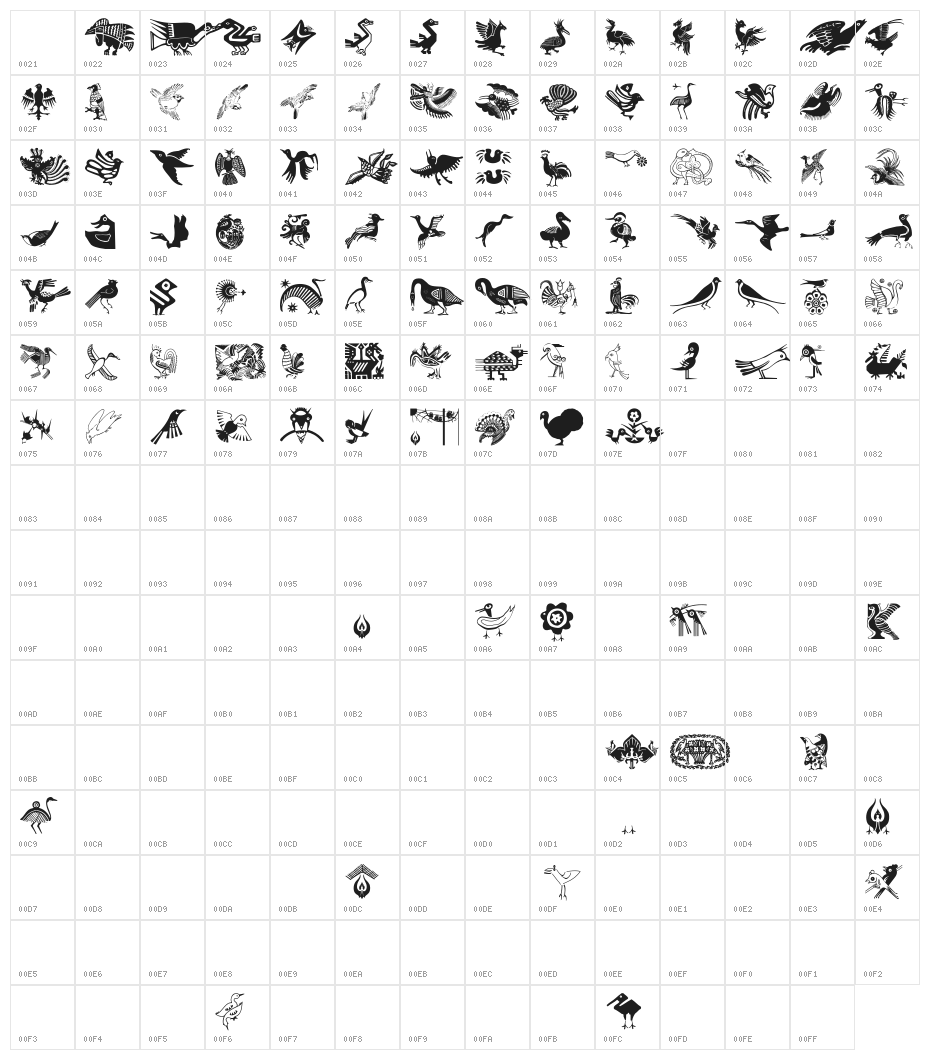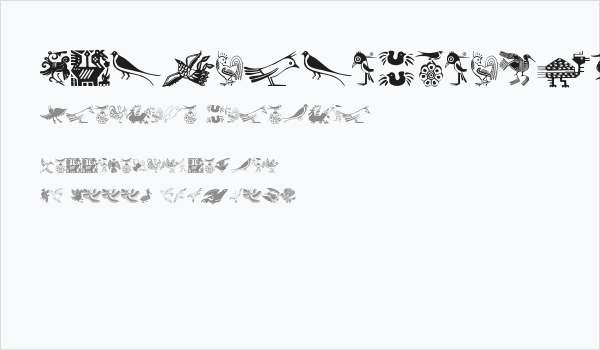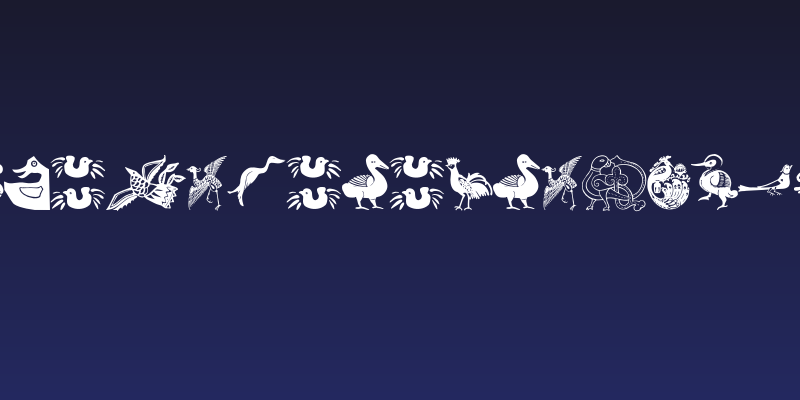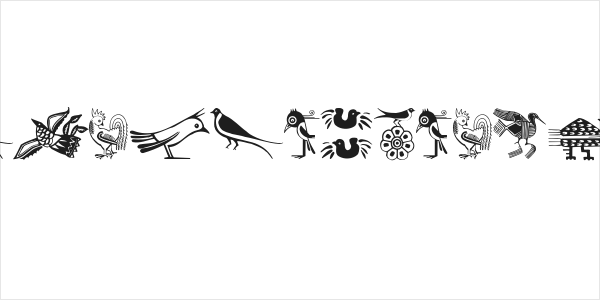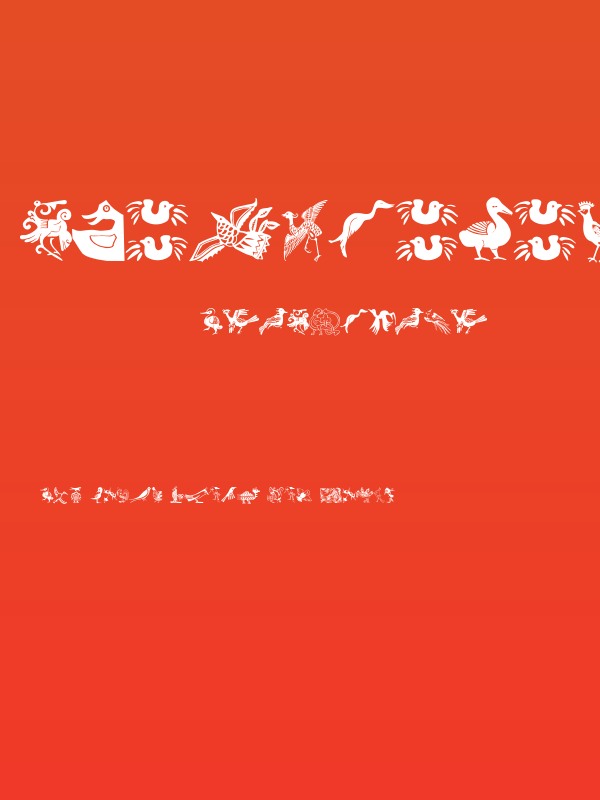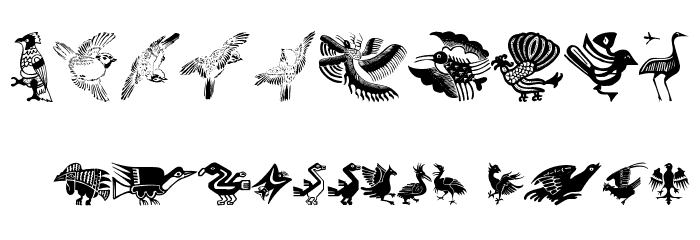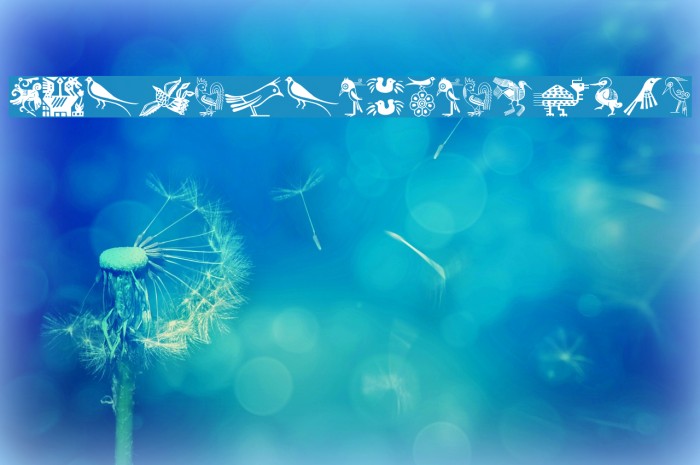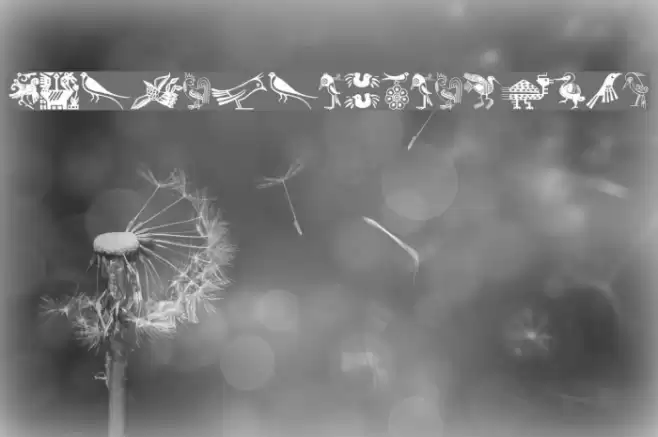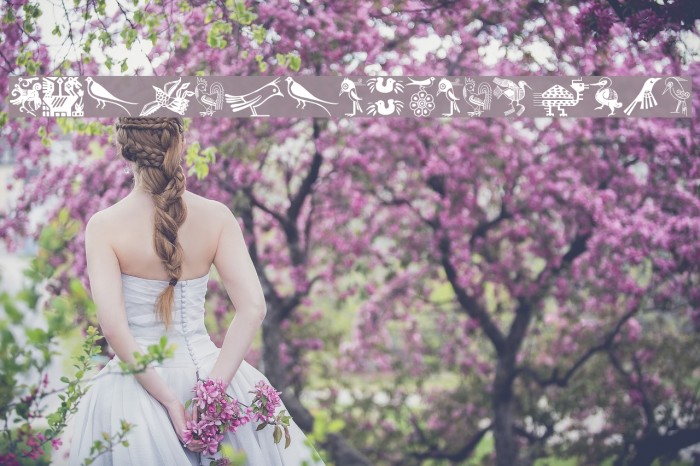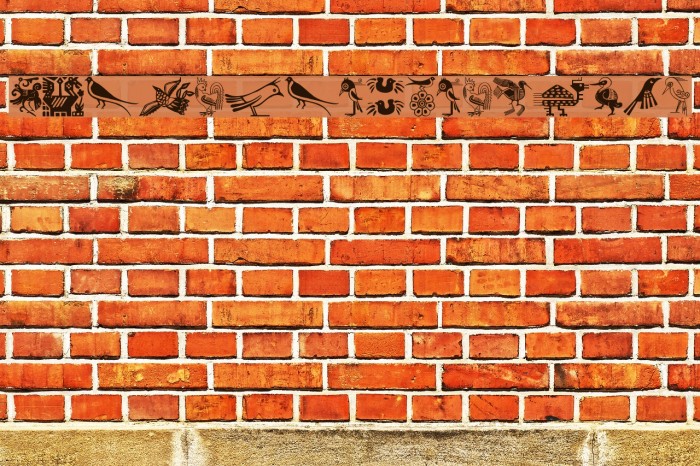
OldBirdsDesignTwo Font
OldBirdsDesignTwo Description
A decorative display font composed entirely of stylized bird illustrations, each glyph representing a unique bird in various artistic styles, from abstract to detailed linework. The characters are highly illustrative and lack traditional letterforms, making them suitable for ornamental or thematic uses rather than standard text.
| Overall Style | Decorative, Artistic, Whimsical |
| Use Case | Logos, Posters, Decorative elements, Thematic headlines |
| Proposed Projects | Children’s books, nature-themed posters, educational materials, branding for wildlife organizations, decorative headings. |